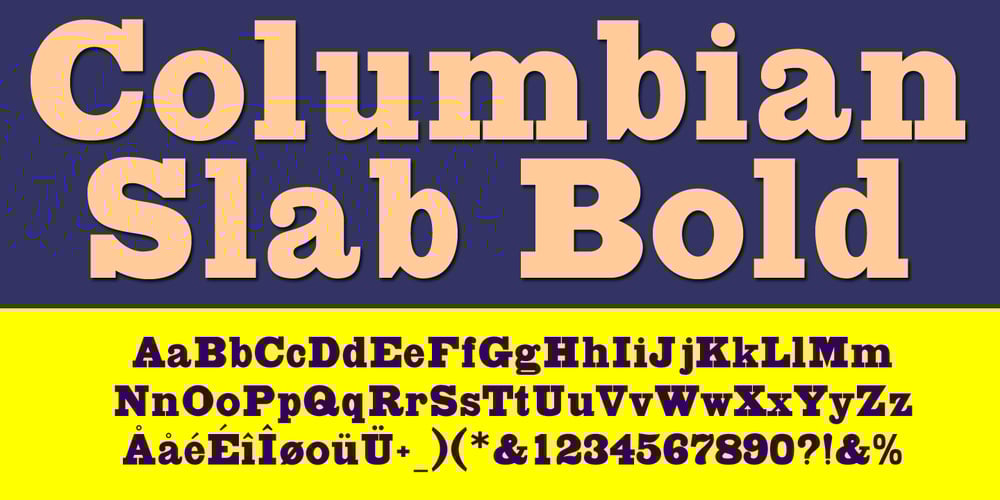
Columbian Slab
Columbian Slab font
Columbian Slab Font Family was designed by Jordan Davies and published by Wooden Type Fonts. Columbian Slab contains 1 styles and family package options. One of the classic display types of the 19th century, an Egyptian with slab serifs. Quite bold.